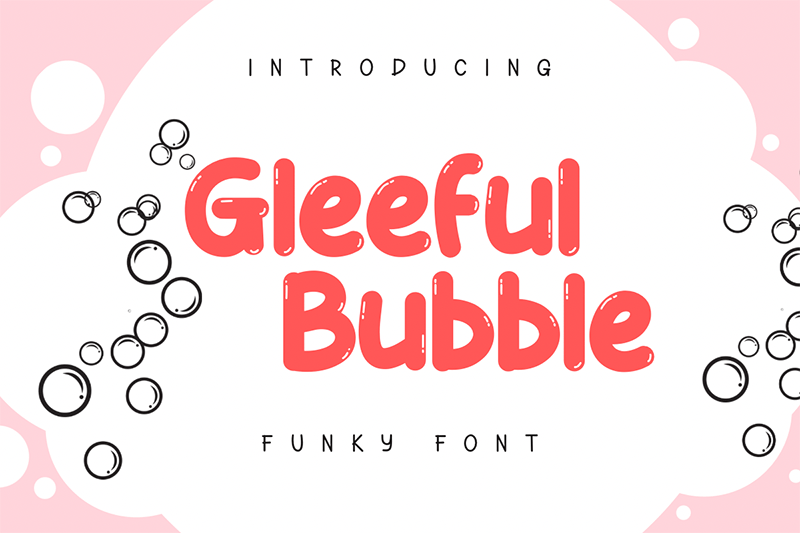
Preview and download Gleeful Bubble Font. Created by Insan Perkasya in Fancy Cartoon styles with Free for personal use license.
Font name: | Gleeful Bubble |
Author: | Insan Perkasya |